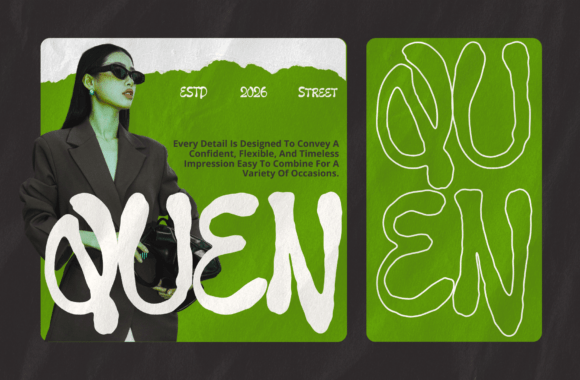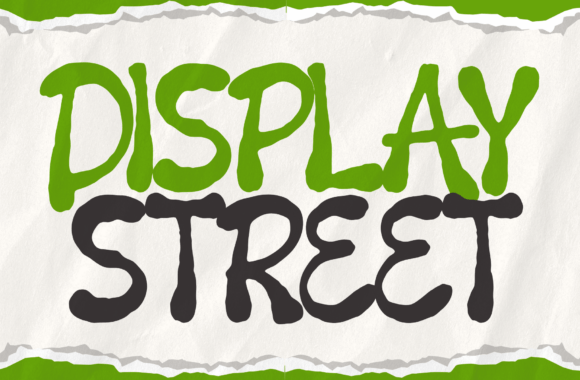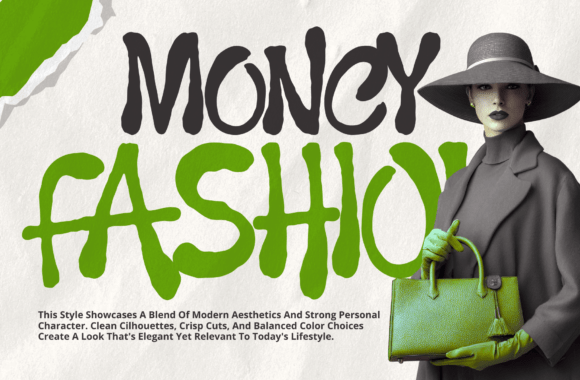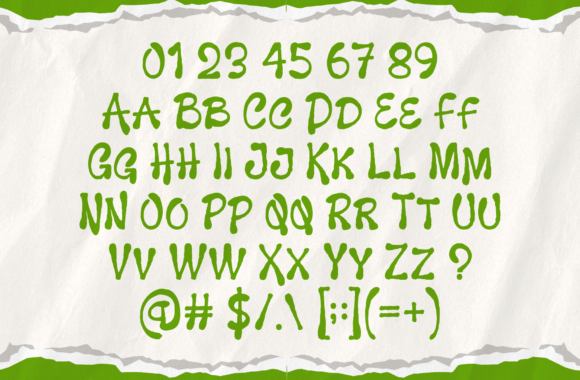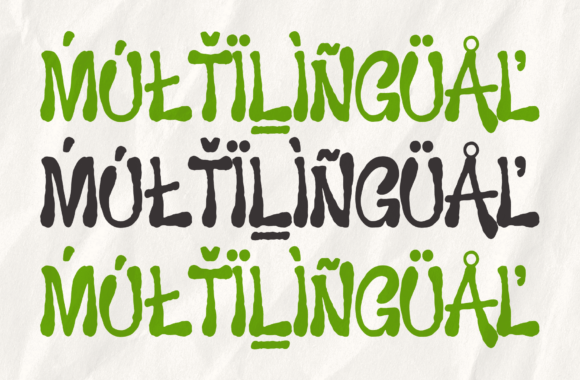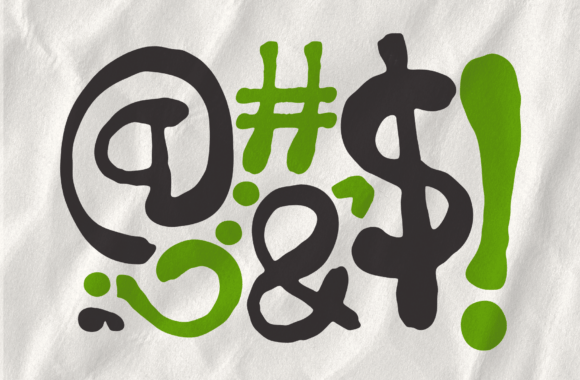
Introduction to Chiria Font
Chiria – Street Decorative Display Chiria is a bold, decorative street-style font inspired by urban culture, graffiti art, and the raw energy of street expression.
Featuring organic brushstrokes and dynamic letterforms, this font delivers a strong, expressive, and rebellious visual style Each character feels hand-drawn, giving the design a strong personality and eye-catching impact.